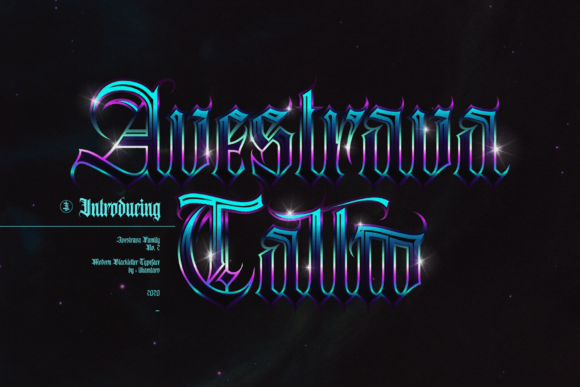
Avestrava Tattoo Font: Elevate Your Design with a Gothic Twist
In the realm of typography, few fonts manage to capture the essence of rebellion and mystique as effectively as the Avestrava Tattoo Font. This stunning typeface, with its deep roots in gothic and tattoo art cultures, offers designers an unparalleled opportunity to infuse their projects with a sense of drama and intrigue. In this article, we’ll explore the Avestrava Tattoo Font in depth, examining its unique features, potential applications, and the creative possibilities it unlocks.
The Essence of Avestrava Tattoo Font
Origins and Inspiration
The Avestrava Tattoo Font draws inspiration from the darker, more mystical corners of art and culture. Its gothic feel is not just a stylistic choice but a nod to the rich history of gothic typography, which has long been associated with mystery, elegance, and a touch of the macabre. This font takes those traditional elements and merges them with the bold, unapologetic aesthetic of tattoo art, resulting in a typeface that is both timeless and contemporary.
Design Characteristics
Avestrava Tattoo Font is characterized by its bold lines, intricate details, and a distinctive gothic flair. Each letterform is crafted to convey a sense of strength and beauty, making it perfect for designs that require a strong visual impact. The font’s Gothic-inspired serifs and ornate decorations add layers of depth and complexity, ensuring that any text set in Avestrava Tattoo Font stands out.
Key Features of Avestrava Tattoo Font
- Gothic Aesthetic: Avestrava Tattoo Font embodies a gothic style that is both elegant and intimidating, perfect for projects that require a touch of the mysterious and unknown.
- Tattoo-Inspired Artistry: The font’s design is influenced by traditional tattoo art, giving it a unique and recognizable look that sets it apart from more conventional typefaces.
- Versatility: Despite its strong aesthetic, Avestrava Tattoo Font is surprisingly versatile, suitable for a wide range of design projects from branding and advertising to personal tattoos and artistic endeavors.
- Legibility: One of the standout features of Avestrava Tattoo Font is its legibility, even at smaller sizes. This makes it an excellent choice for designs where the message needs to be clear as well as visually striking.
Applications of Avestrava Tattoo Font
Tattoo Design
Given its inspiration from tattoo art, Avestrava Tattoo Font is a natural fit for tattoo designs. Whether you’re a tattoo artist looking for a unique way to letter your designs or someone planning their first tattoo, this font offers a beautiful, custom look that can elevate your body art to the next level.
Graphic Design Projects
Avestrava Tattoo Font can add a dramatic flair to any graphic design project. It’s perfect for posters, flyers, and brochures that need to capture attention quickly. The font’s bold and gothic style makes it particularly effective for designs related to music, fashion, and art.
Branding and Logo Design
For businesses looking to create a brand identity that stands out, Avestrava Tattoo Font offers a compelling option. Its unique style can help a brand appear bold, confident, and memorable, qualities that are invaluable in today’s competitive market.
Tips for Using Avestrava Tattoo Font
Pairing with Other Fonts
To maximize the impact of Avestrava Tattoo Font, consider pairing it with simpler, sans-serif fonts. This contrast can help to balance the design and ensure that the Avestrava font stands out without overwhelming the viewer.
Color Choices
The bold and gothic nature of Avestrava Tattoo Font lends itself well to darker color palettes, but don’t be afraid to experiment with vibrant colors. The right color choice can dramatically alter the font’s appearance and suitability for different projects.
Scale and Size
While Avestrava Tattoo Font is stunning in large sizes, it’s also surprisingly effective at smaller sizes. Experiment with different scales to find the perfect balance for your design.
Avestrava Tattoo Font is more than just a typeface; it’s a statement. With its gothic feel and tattoo-inspired artistry, it offers designers a powerful tool to make their projects stand out. Whether you’re creating a tattoo design, a bold branding campaign, or simply looking to add some drama to your graphic design work, Avestrava Tattoo Font is an excellent choice. Its unique blend of style, versatility, and legibility ensures that it can elevate any design project to the next level.
Incorporating Avestrava Tattoo Font into your designs is not just about making a visual statement; it’s about tapping into a rich cultural heritage of art and typography. With its bold aesthetic and wide range of applications, Avestrava Tattoo Font is poised to become a favorite among designers looking to push the boundaries of creativity and style.